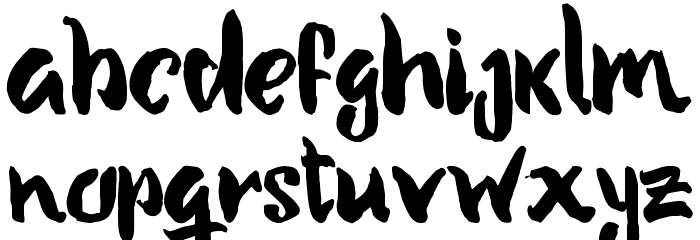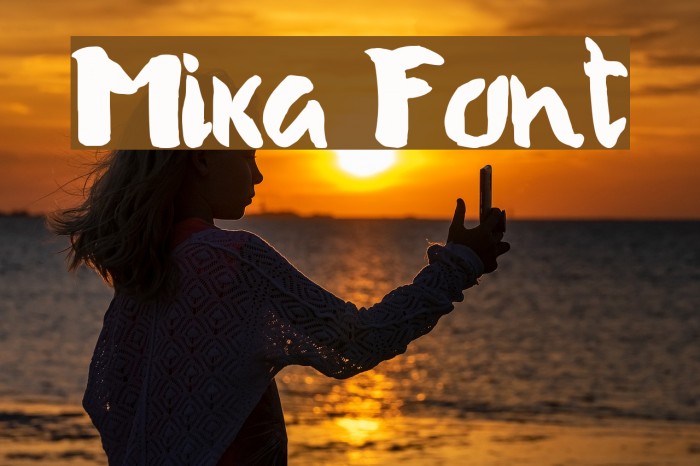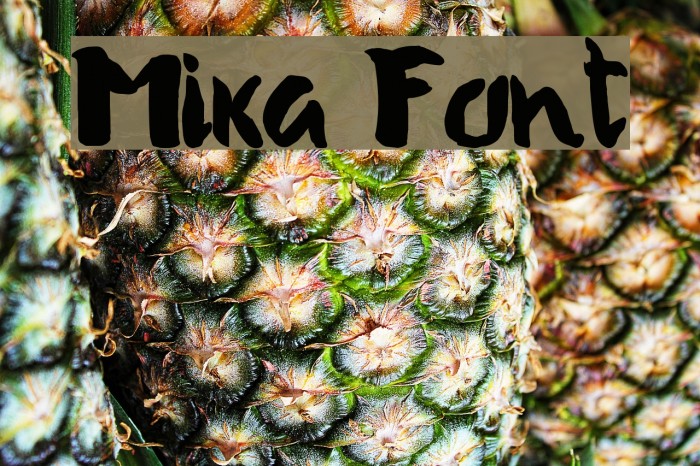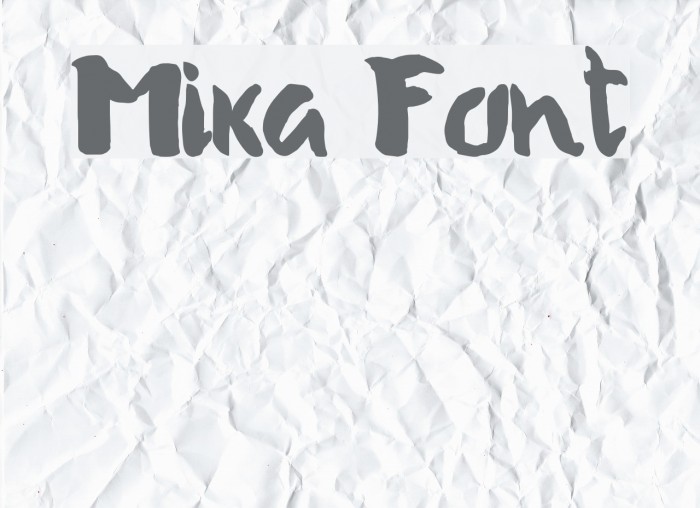
Mika Font
This font features a bold and expressive handwritten style, characterized by its thick strokes and dynamic flow. The letters have an organic, brush-like appearance, giving them a lively and artistic feel. The uppercase and lowercase letters maintain a consistent style, with a playful yet sophisticated look. The numbers and special characters are equally bold, ensuring a cohesive design throughout. This font's unique style makes it stand out, perfect for creative projects that require a personal touch.
A bold, expressive handwritten font with a brush-like appearance.
- Font: Mika
- Proposed Projects: Ideal for branding, posters, invitations, and artistic projects that require a personal and dynamic touch.